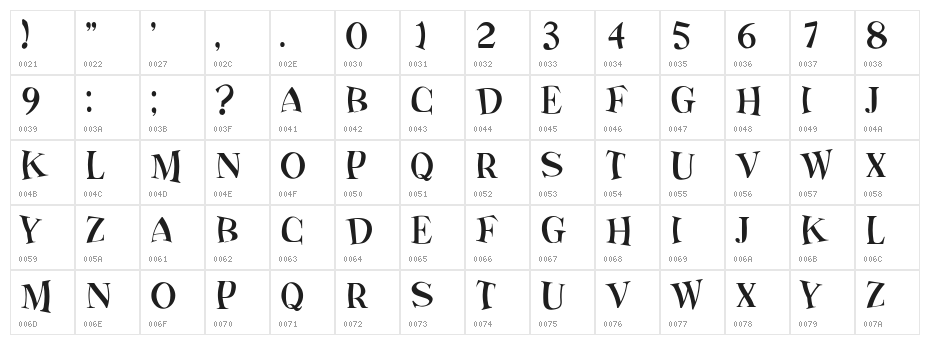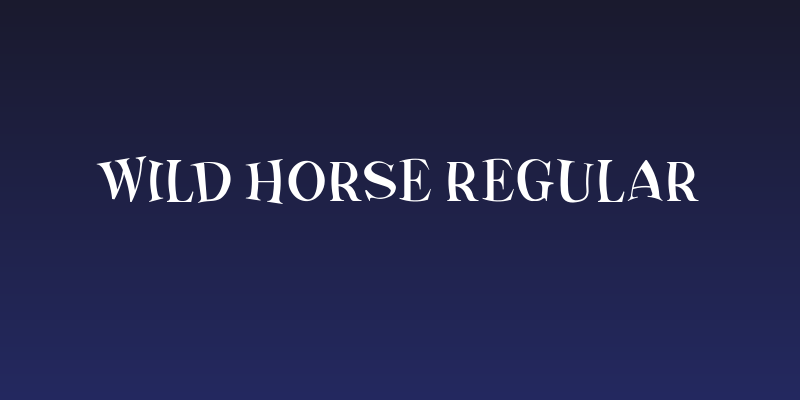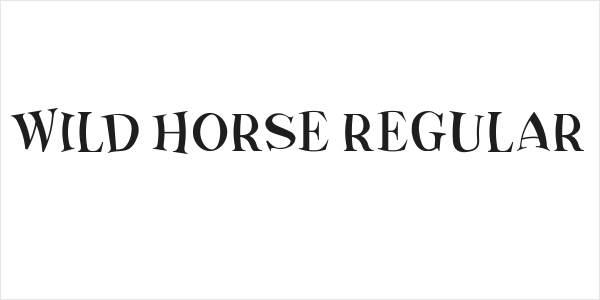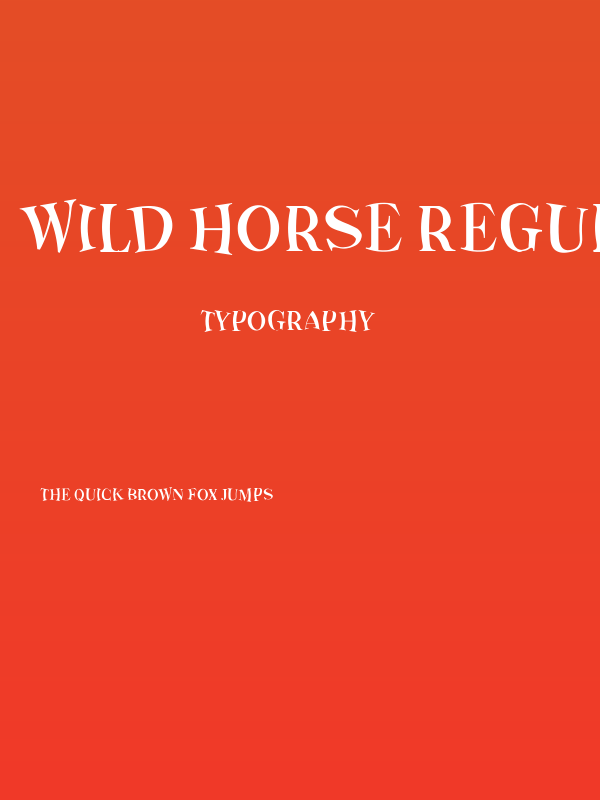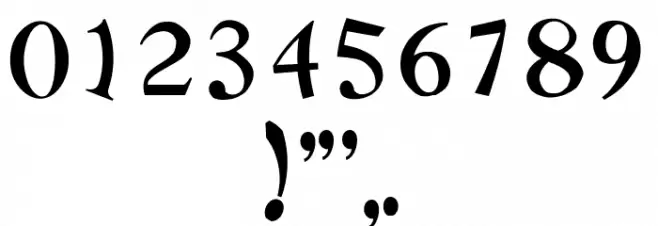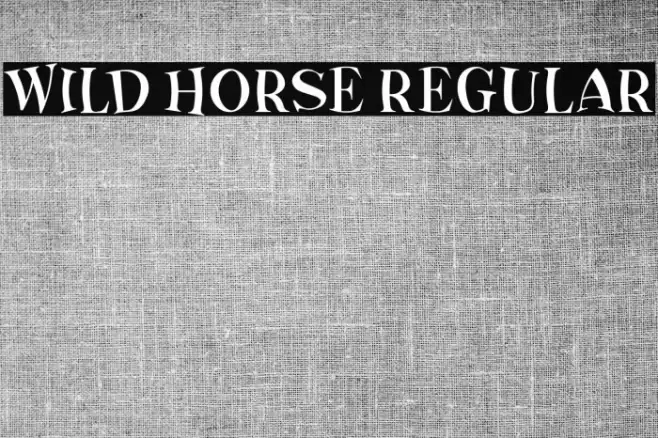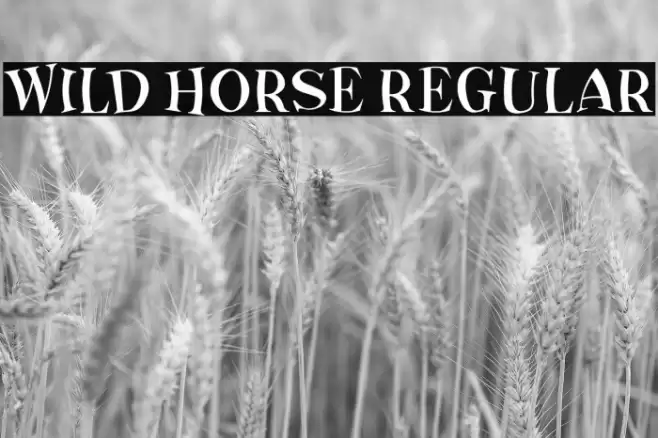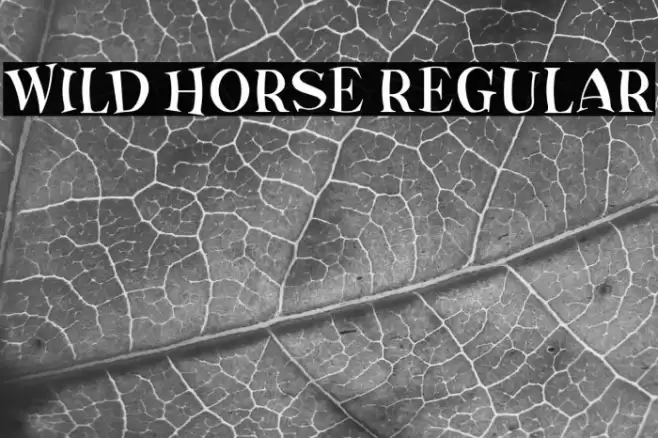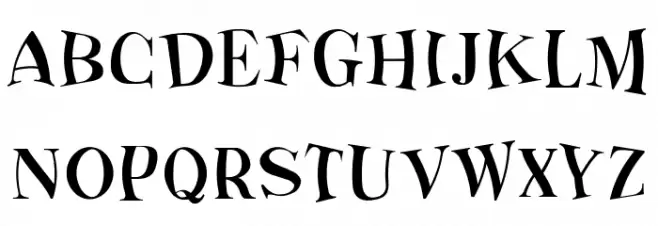
Wild Horse Regular Font
Wild Horse Regular Description
This font features a unique and dynamic style with a sense of movement and flair. The characters have a slightly whimsical and playful appearance, with varying stroke widths that create a lively and energetic feel. The uppercase letters are bold and commanding, while the lowercase letters maintain a consistent style that complements the overall design. The numbers are distinct and easy to read, with a touch of elegance that matches the alphabet. Special characters are creatively designed, adding to the font's versatility. This font is perfect for projects that require a touch of creativity and uniqueness.